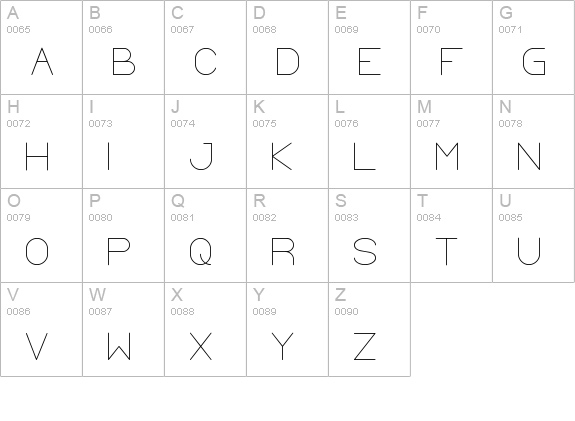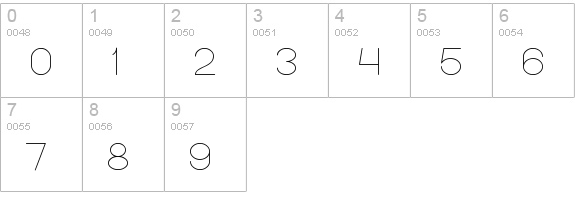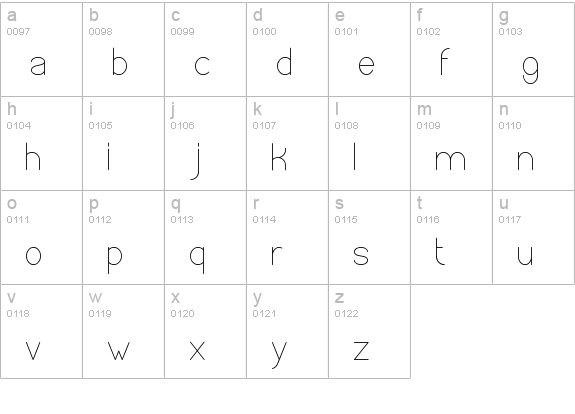
OPTICAL FIBER Font Details
Introducing the mesmerizing OPTICAL FIBER font, a captivating typeface that will bring a touch of futuristic elegance to any design project. With its sleek and slender letterforms, this font embodies the essence of modernity and sophistication. The OPTICAL FIBER font stands out with its unique combination of sharp angles and graceful curves, creating a harmonious balance that is visually striking. Each letter is meticulously crafted to perfection, ensuring legibility without compromising on style. One of the most remarkable features of the OPTICAL FIBER font is its versatility. Whether used for logos, headlines, or body text, this font adapts effortlessly to any context, adding a touch of professionalism and class. Its clean lines and crisp edges make it ideal for both print and digital applications. But what truly sets the OPTICAL FIBER font apart is its ability to evoke a sense of innovation and progress. Its futuristic aesthetic immediately captures attention and creates a visual impact that is hard to ignore. It is the perfect choice for projects that aim to push boundaries and embrace the cutting edge. And the best part? The OPTICAL FIBER font is freely available to download at FontsMarket.com. You can easily access this sleek and sophisticated typeface and elevate your design projects with its modern charm. So why wait? Download the OPTICAL FIBER font today and unlock a world of infinite design possibilities.